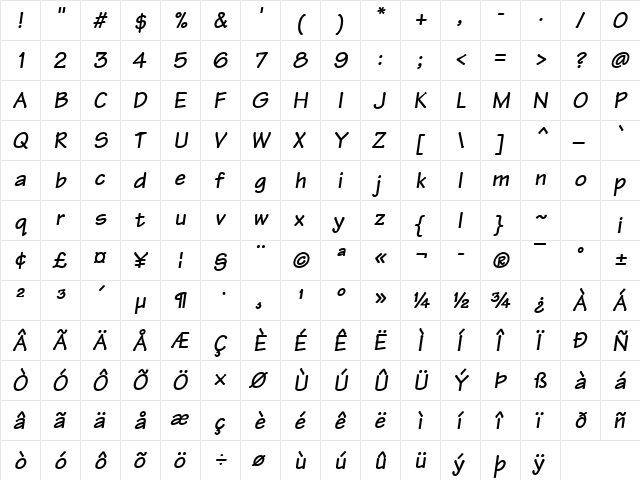
Architect Bold Italic
Design Context for Architect Typeface
Architect is a composed and adaptable typeface that performs quietly and consistently across a wide range of design contexts. The slanted form adds forward momentum and visual energy. The heavy weight commands attention and anchors typographic hierarchies.
Pro Tip: Try Architect for annotation and caption copy alongside an upright companion — the contrast in angle creates a dynamic but ordered typographic system.